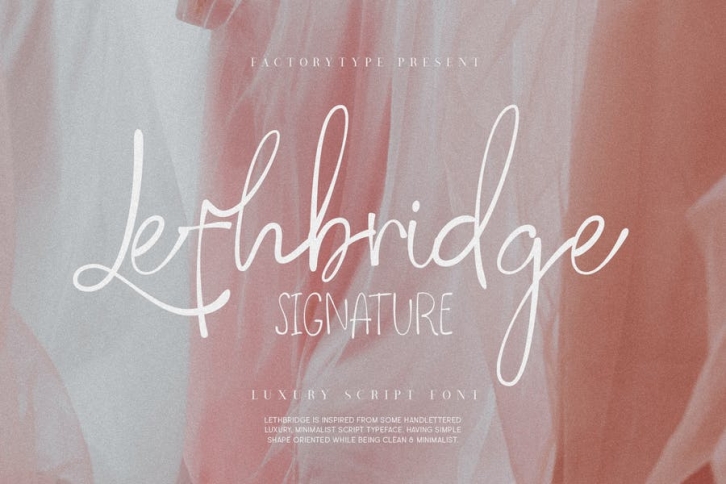
Introducing Lethbridge a luxury handwritten font with a personal touch. Lethbridge script is ideal for a variety of projects that require a handwritten touch, such as branding and logo designs, wedding invitations and stationery, social media posts and advertisements.
- Lethbridge Script (Regular, Caps, and Tails)
- Basic Latin A-Z and a-z
- Numerals & Punctuation
- Stylistic Ligatures
- Multilingual Support for ä ö ü Ä Ö Ü …